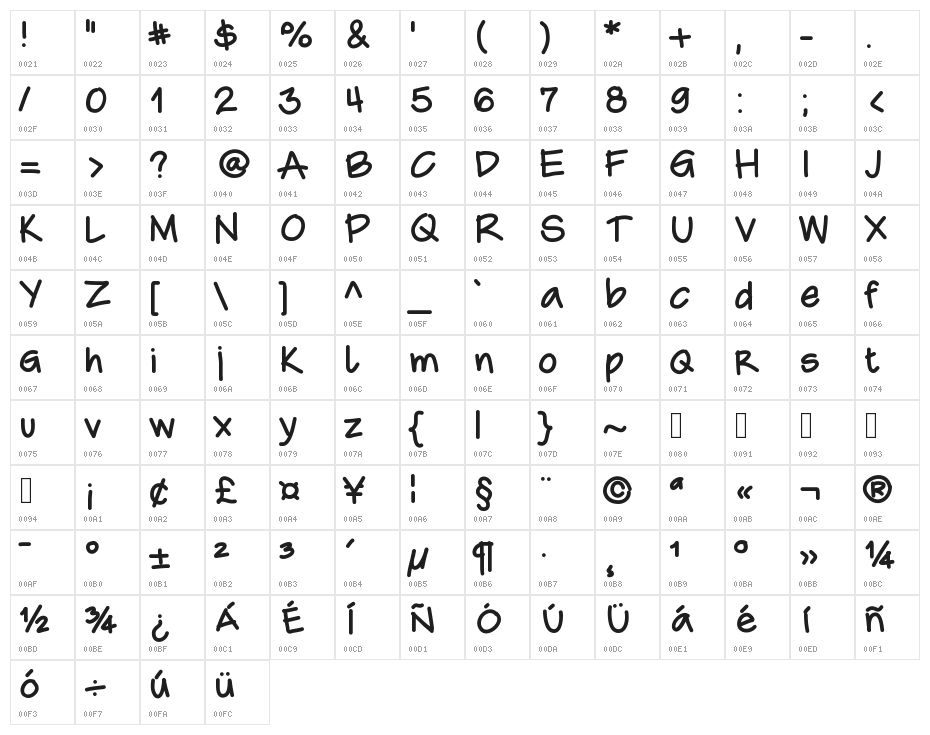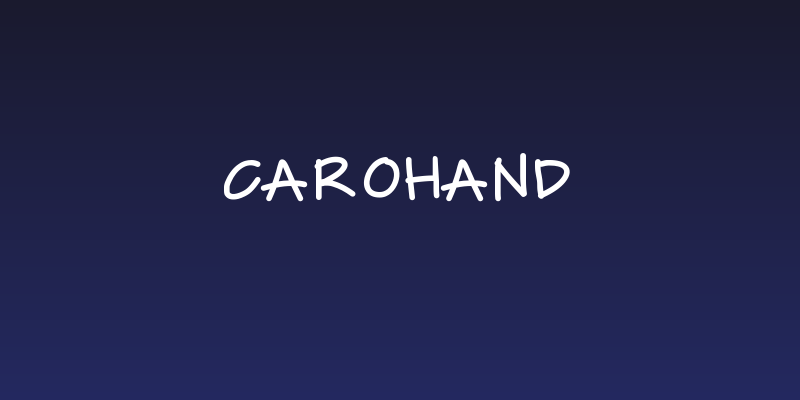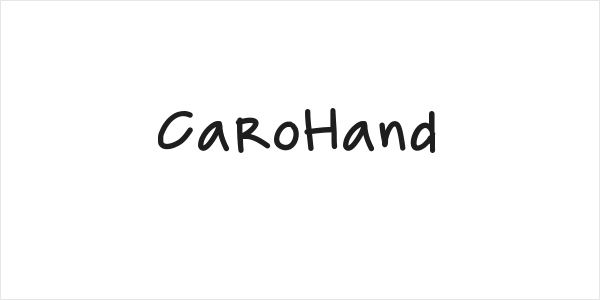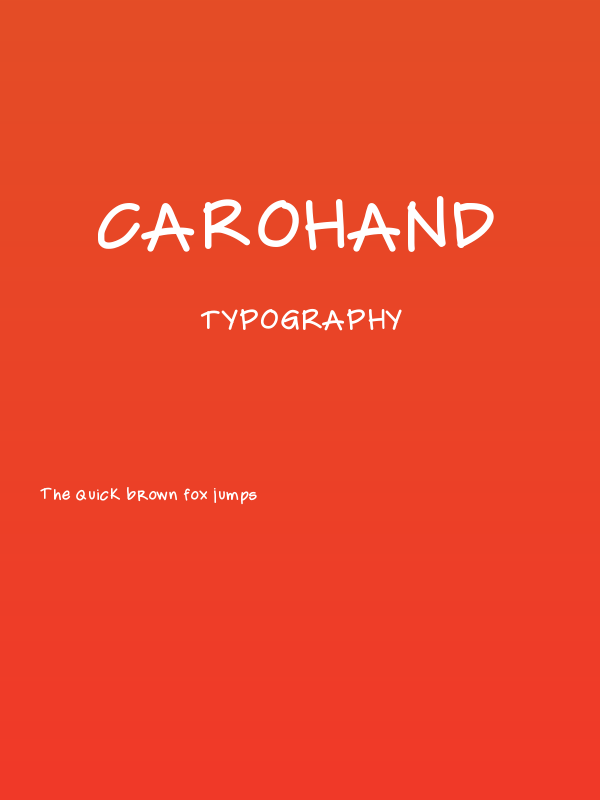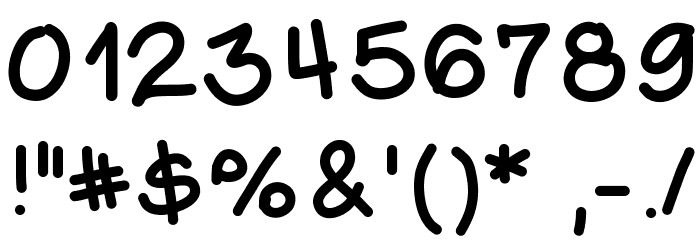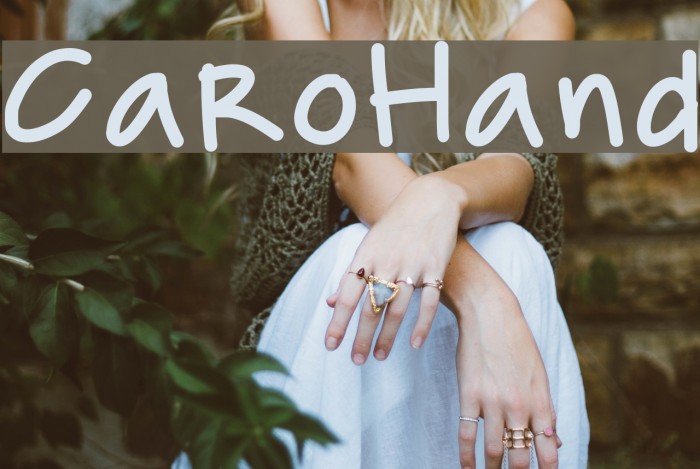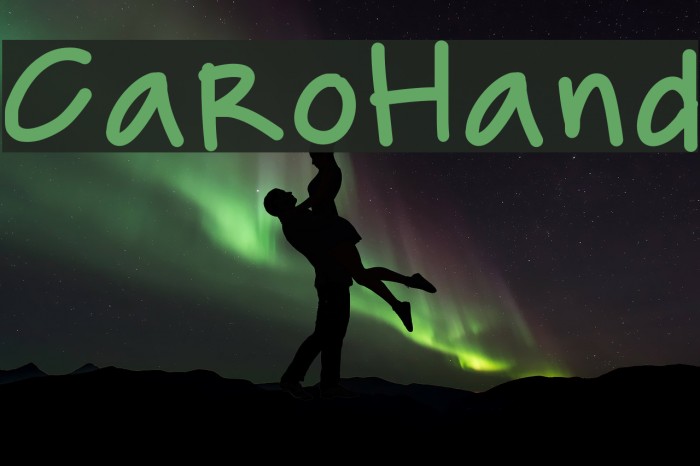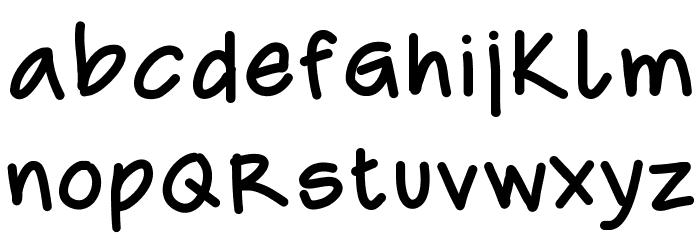
CaroHand Font
CaroHand Description
This playful and informal font features a handwritten style with a casual, friendly appearance. The characters are rounded and slightly irregular, giving them a natural, organic feel. The uppercase and lowercase letters maintain a consistent style, with a slight slant that adds to the handwritten effect. The numbers and special characters are designed to match the overall aesthetic, ensuring a cohesive look across all text. This font's charm lies in its simplicity and approachability, making it ideal for projects that require a personal touch.
Fonts by Carolina Mejia - mitiendadescrapbook.com
| Use Case | Headlines, Informal text, Personal projects |
| Proposed Projects | Ideal for greeting cards, children's books, personal blogs, and informal branding. |